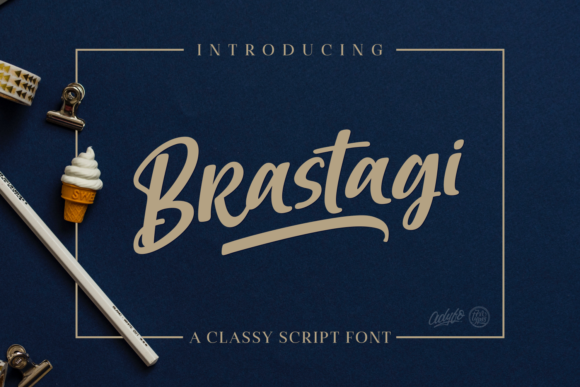
The Brastagi Font: Elevate Your Designs with Elegance
I’ll never forget the time I was working on a luxury branding project for a high-end jewelry client. I had spent hours perfecting the logo design, but something was off. The font I had chosen just wasn’t conveying the level of sophistication and glamour that the brand embodied. That’s when I stumbled upon the Brastagi font, and it completely transformed the design. In this article, I’ll share my experience with this stunning script font and provide a comprehensive guide on how to make the most of its features.
A Personal Review: What I Love About Brastagi
The Brastagi font has become a staple in my design toolkit, and for good reason. Here are some of the things that I love about it:
• ✨ Exceptional Readability: The bold letters of Brastagi have a great readability, making it perfect for headlines, titles, and short paragraphs.
• ✅ Modern and Luxurious Feel: The font’s sleek and elegant design adds a touch of sophistication to any project, making it ideal for luxury brands, high-end products, and creative designs.
• 🔥 Versatility: Brastagi works well in a variety of design contexts, from digital media to print materials.
While Brastagi is an excellent font, it’s not without its quirks. Here are a few things to keep in mind:
• 🤔 Limited Use in Body Text: Due to its bold nature, Brastagi may not be the best choice for lengthy body text. It’s better suited for headings, titles, and short paragraphs.
• ⚠️ Glyph Limitations: As with any font, there may be limitations to the number of glyphs available. However, Brastagi provides a robust set of characters to work with.
A Practical Guide to Using Brastagi
Now that we’ve covered the basics, let’s dive into how to use Brastagi in various design platforms.
3. Experiment with OpenType features, such as ligatures and stylistic alternates, to add visual interest to your text.
The Story Behind Brastagi
The Brastagi font was designed with elegance and sophistication in mind. Its creator aimed to craft a font that would evoke a sense of luxury and refinement, while still being versatile and easy to read. The result is a stunning script font that has captured the hearts of designers and crafters alike.
Font Name Brastagi Font
Author Adyfo (7NTypes)
What is the Brastagi font best used for? The Brastagi font is best used for headlines, titles, and short paragraphs where a touch of elegance and sophistication is desired.
Is Brastagi suitable for body text? While Brastagi can be used for body text, it’s not the most ideal choice due to its bold nature. It’s better suited for shorter paragraphs and headings.